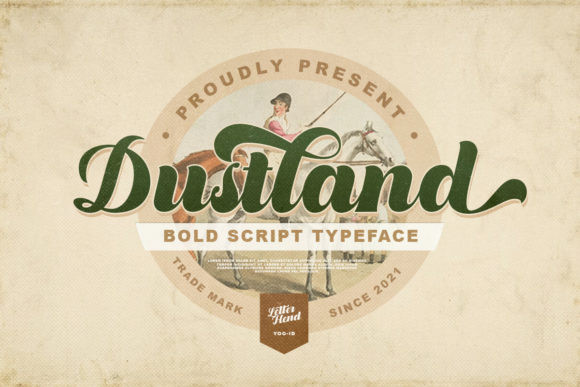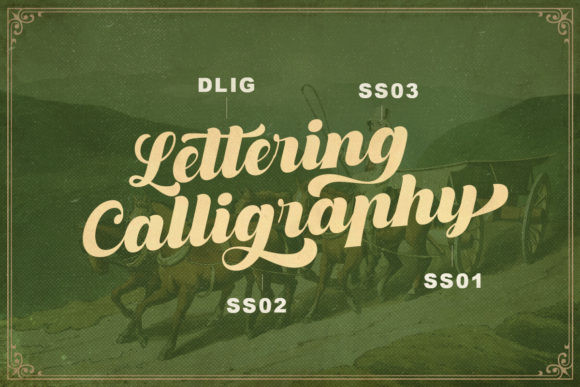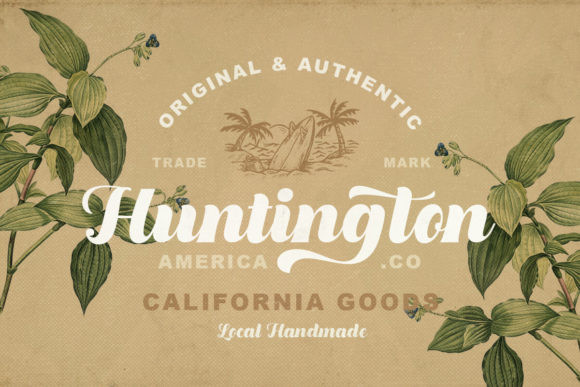
Dustland Font
Dustland is a daring, vintage styled handwritten font, crafted to give your headlines and logotype projects a stylish touch. This font reads as strong, confident, and dynamic and can add tons of nostalgic character to your designs.